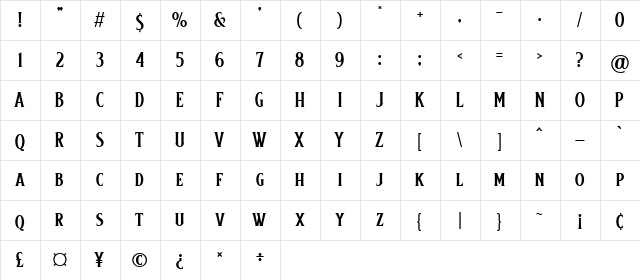
Baisteach Regular
| Foundry | Twicolabs Fontdation |
| Designer | Twicolabs Fontdation |
Design Context for Baisteach Typeface
Baisteach is a composed and adaptable typeface that performs quietly and consistently across a wide range of design contexts.